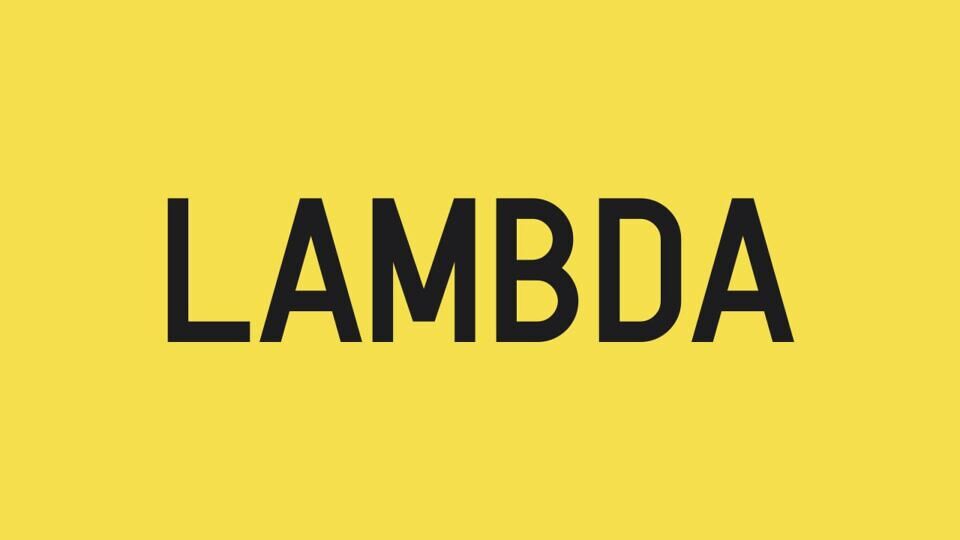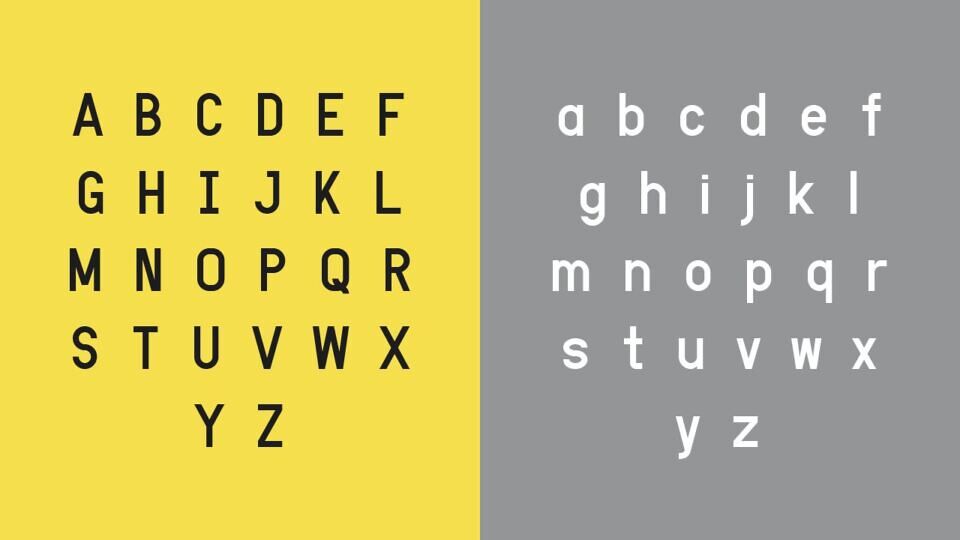
Lambda is a clean, free sans-serif typeface by GGBotNet, available under the SIL Open Font License. It includes regular and italic styles, boasting 708 glyphs and extensive language support for over 75 languages.
Ideal for various 2D and text-based projects, Lambda offers developers and designers a versatile and readable font. Its “soft sophistication” makes it suitable for user interfaces and game development, ensuring clarity in text. Available in .ttf, .otf, and .woff formats.